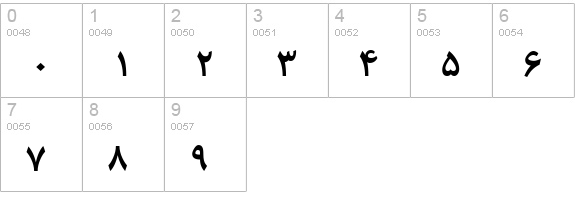
B Roya Bold Font Details
B Roya Bold is a strong, high-contrast variant in the B typeface family \xE2\x80\x94 well suited to headlines, attention-grabbing titles, and strong calls-to-action.
B Roya Bold is a stunning and elegant font that exudes sophistication and style. Its bold and modern design makes it perfect for a wide range of projects, from branding to advertising to packaging. With its clean lines and sharp edges, B Roya Bold commands attention and adds a touch of class to any design. The best part? B Roya Bold is available for free download at FontsMarket.com. This means you can elevate your projects with this beautiful font without breaking the bank. Don't miss out on the opportunity to add B Roya Bold to your font collection today and take your designs to the next level.